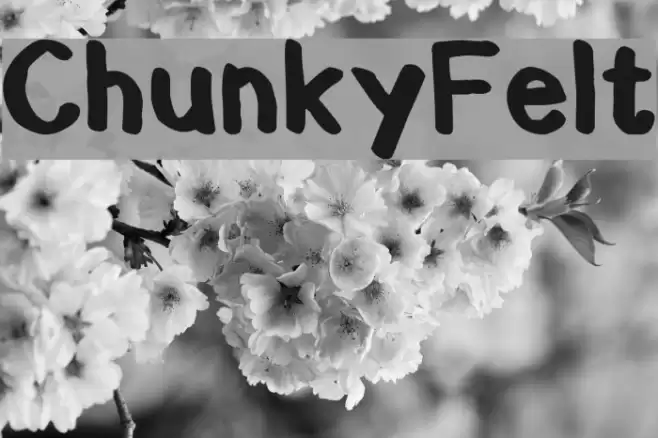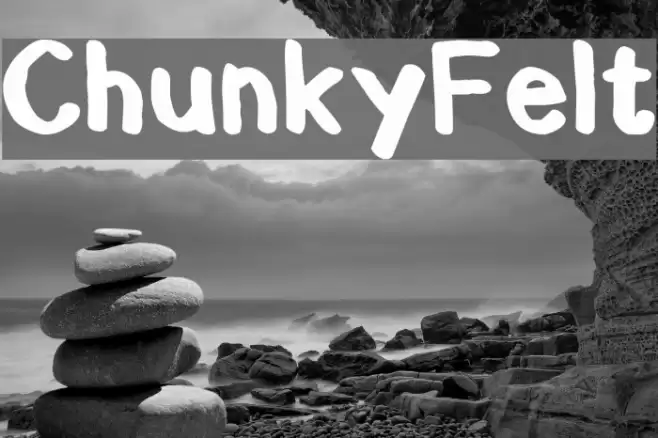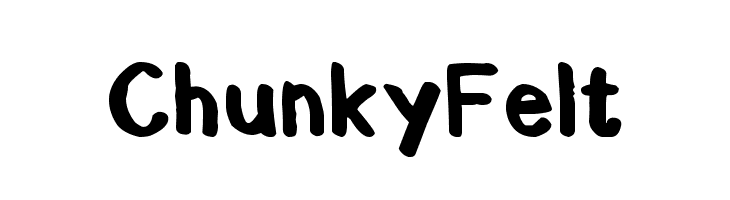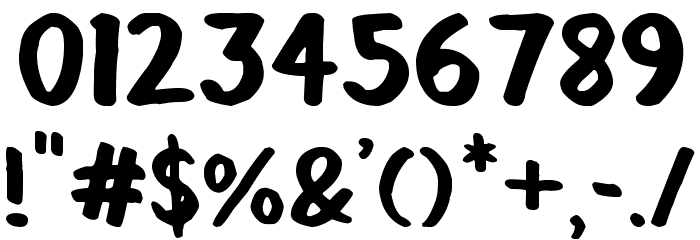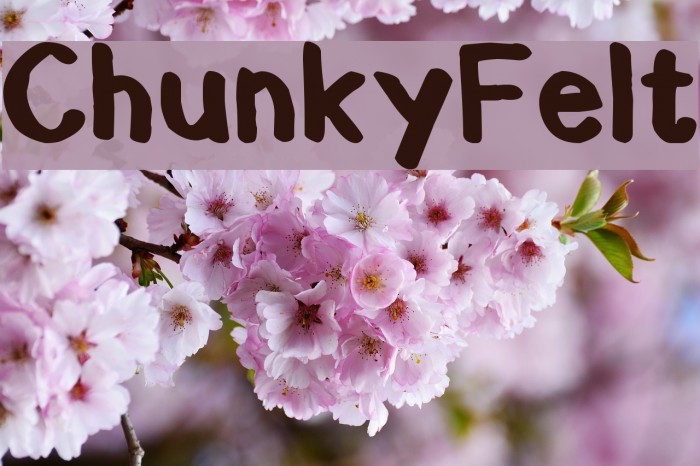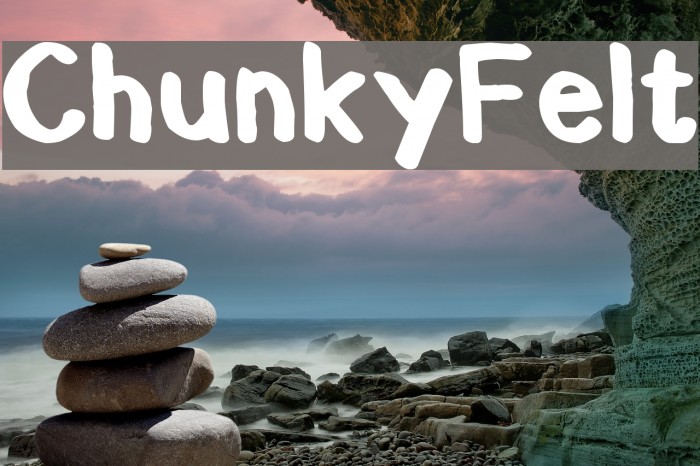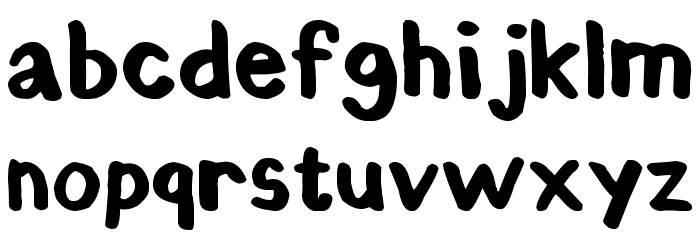
ChunkyFelt Font
ChunkyFelt Description
This font features a bold and playful style, characterized by its thick, rounded strokes and slightly irregular shapes that give it a hand-drawn appearance. The letters are well-spaced, providing a clear and legible look, while maintaining a whimsical and informal vibe. Its unique, chunky design makes it stand out, making it ideal for projects that require a fun and engaging aesthetic. The font includes a full set of uppercase and lowercase letters, numbers, and a variety of special characters, ensuring versatility in its application.
A bold, playful font with thick, rounded strokes and a hand-drawn feel from Comic fonts.
- Proposed Projects: Ideal for children's books, playful branding, posters, and greeting cards.
- Overall Style: Playful, Informal
- Use Case: Headlines, Posters, Branding